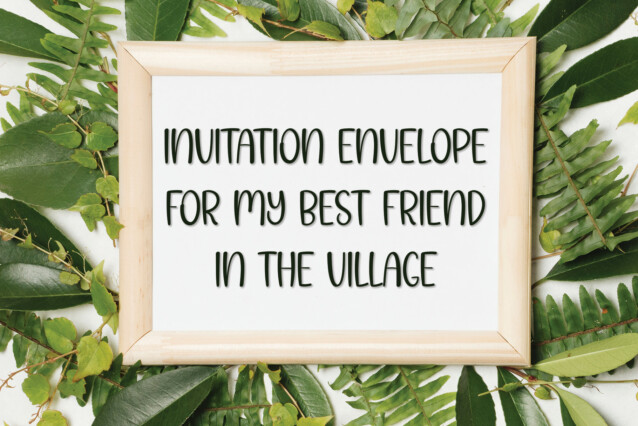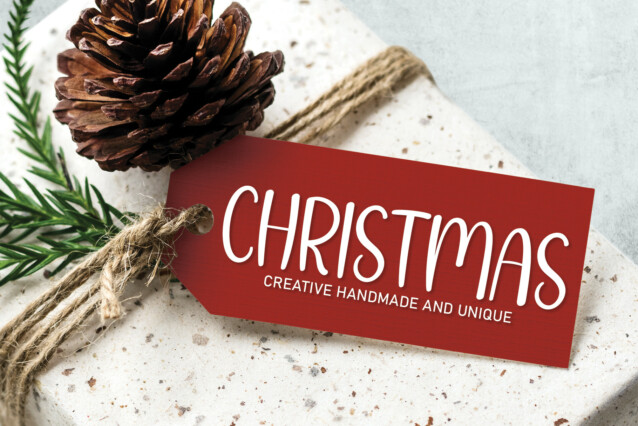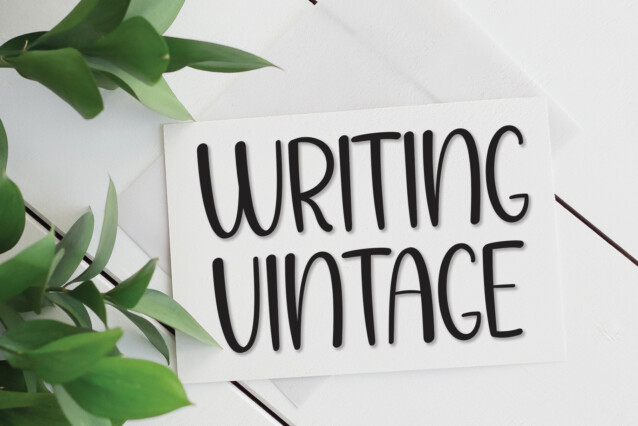
Palm Sugar Display Font
Palm Sugar Display Font is a cool and casual handwritten font. Whether you’re using it for crafts, digital design, presentations, or making greeting cards, this font has the potential to become your favorite go-to font, no matter the occasion.